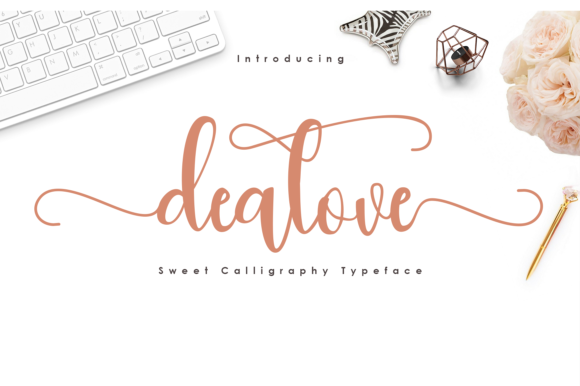
Unlock the Magic of Beautiful Lettering with Dealove Script Font
Have you ever been working on a creative project, staring at a blank page, and suddenly the perfect idea strikes? You see it in your mind’s eye: elegant, flowing script that makes your message stand out. That’s the power of a great font, and Dealove Script Font is here to help you bring your vision to life.
Dealove Script Font is a versatile and user-friendly calligraphy typeface that lets you create stunning lettering with ease. Its modern script style makes it perfect for a wide range of projects, from quotes and blog headers to posters, weddings, and branding. Whether you’re a seasoned designer or just starting out, Dealove Script Font is a valuable addition to your toolkit, helping you add a touch of elegance and sophistication to your work.
Dealove Script Font Key Features
- Unique Characteristic: Dealove Script Font features a beautiful, hand-drawn design with elegant script strokes, perfect for creating a luxurious and sophisticated look.
- Font Style: Dealove Script Font comes in regular and bold weights, offering flexibility for designers to choose the perfect style for their project.
Design Review: Dealove Script Font
Overall, I think Dealove Script Font is a beautiful, elegant font that can add a touch of sophistication to any design project ✨. It’s perfect for creating invitations, branding materials, and other materials where a handwritten feel is desired.
The font’s flowing connections between letters and the subtle flair at the ends make it feel very organic and natural. I also appreciate how versatile it is – it works well for both digital and print projects.
While Dealove Script Font is a wonderful addition to any designer’s toolkit, there are a few limitations to be aware of ⚠️:
- It may not be the best choice for large blocks of text, as the flowing connections can make it difficult to read at larger font sizes.
- Some characters, such as the lowercase ‘a’ and ‘c’, can be a bit tricky to read at smaller sizes.
- The font may not be suitable for designs where a bold, statement font is needed.
Despite its limitations, I think Dealove Script Font is a fantastic choice for designers who want to add a touch of elegance to their projects. It’s perfect for creating invitations, branding materials, and other materials where a handwritten feel is desired.
Tips for Getting the Most Out of Dealove Script Font
Use Dealove Script Font for titles, headings, and emphasis to add a touch of elegance and sophistication to your designs.
Experiment with different font sizes and styles to achieve the desired effect.
Combine Dealove Script Font with other fonts to create a unique and visually appealing design.
Wedding invitations, event invitations, and other formal invitations.
Business cards, letterheads, and other marketing materials.
Wedding and event signage, menus, and other print materials.